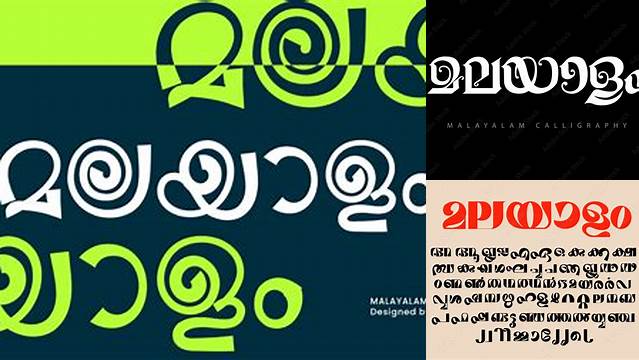
Hey guys! Are you looking to add a touch of elegance and artistic flair to your Malayalam text? Then, you've come to the right place! Today, we're diving deep into the world of Malayalam calligraphy font generators, specifically the ones that won't cost you a penny. Yes, you heard that right – free downloads are the name of the game! This article is your ultimate guide to finding, using, and even understanding a bit more about these cool tools. We will explore various aspects, from where to find them, to how to use them effectively, and even some tips and tricks to make your Malayalam calligraphy truly stand out. So, buckle up, because we're about to embark on a creative journey that will transform your digital Malayalam text from the ordinary to the extraordinary. Let's get started!
1. Understanding Malayalam Calligraphy: A Quick Primer
Before we jump into the font generators, let’s quickly get acquainted with Malayalam calligraphy. What makes it special? Well, Malayalam, with its elegant script and flowing curves, lends itself beautifully to artistic lettering. Malayalam calligraphy is the art of creating beautiful, stylized writing using the Malayalam script. It's all about precision, artistic expression, and the ability to transform ordinary words into visually stunning pieces of art. The goal is to create text that is both readable and aesthetically pleasing. Think of it as painting with words. The traditional methods involve using tools like bamboo pens, ink, and paper. But in the digital age, calligraphy font generators have made this art form accessible to everyone. They provide a way to create stunning Malayalam text without the need for specialized skills or equipment. It is a blend of tradition and technology, allowing us to celebrate and preserve the beauty of the Malayalam language in a modern context. Calligraphy isn't just about writing; it's about expressing emotions, telling stories, and adding a personal touch to your work. Whether you are creating invitations, designing logos, or simply adding flair to your social media posts, Malayalam calligraphy can elevate your work. Understanding its principles will help you appreciate and use the fonts generated by the tools we'll explore. So, whether you're a seasoned designer or a curious beginner, let's get creative!
1.1 The Beauty of Malayalam Script in Calligraphy
Malayalam script, with its rounded characters and elegant strokes, is inherently suited to calligraphy. Each letter has a unique charm, and the way they connect and flow together creates a visual symphony. The beauty of Malayalam calligraphy lies in the balance between the traditional form and the artist's personal style. The shapes and curves of the Malayalam script are visually appealing and provide a great canvas for artistic expression. Calligraphers often experiment with different styles, thicknesses, and embellishments to enhance the visual appeal of the text. This artistry transforms ordinary words into works of art. The flowing nature of the letters allows for graceful connections and transitions, creating a sense of harmony and fluidity. Mastering this script in calligraphy involves understanding the structure of each character, the nuances of the strokes, and the overall composition of the text. It requires patience, practice, and a keen eye for detail. The end result is a piece of text that not only conveys information but also captivates and inspires the viewer. Whether you are a beginner or an experienced calligrapher, exploring the nuances of the Malayalam script will undoubtedly enhance your appreciation for this art form.
1.2 Why Choose Digital Malayalam Calligraphy?
Digital Malayalam calligraphy offers numerous advantages, making it a popular choice for both professionals and hobbyists. Unlike traditional methods, digital calligraphy eliminates the need for physical tools like pens, ink, and paper. This convenience allows you to create stunning Malayalam text anytime, anywhere, with just a computer or a mobile device. Digital tools provide easy editing and customization options, enabling you to experiment with different styles, sizes, and effects without the risk of making irreversible mistakes. You can easily change the color, spacing, and overall appearance of your text until you achieve the desired result. Digital calligraphy also offers versatility, allowing you to use your creations in various formats, from social media posts and website designs to printable materials. The ability to save and share your work digitally makes it easy to collaborate with others and showcase your creative efforts. This is a cost-effective and time-saving option. The ability to instantly correct and modify your work saves time and resources, allowing you to explore different designs and refine your skills with ease. Plus, the availability of free Malayalam calligraphy font generators opens up this art form to everyone, regardless of their budget. The digital realm offers a vast array of resources, tutorials, and communities where you can learn and enhance your skills, making your calligraphy journey both rewarding and accessible. In the age of digital media, digital calligraphy is an essential tool for creative expression and communication.